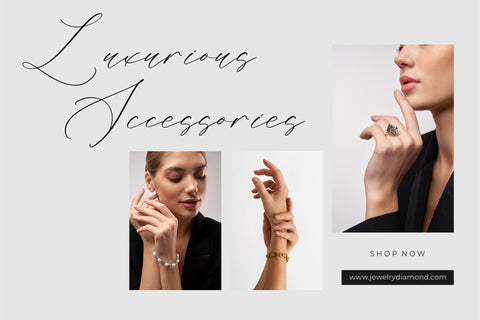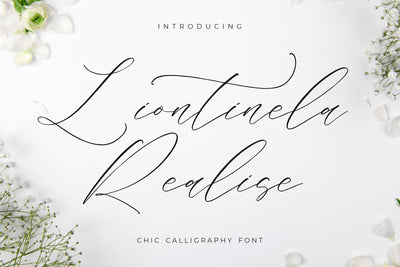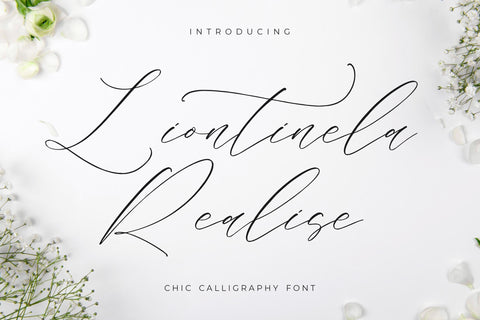
Liontinela Realise - Chic Calligraphy Font
Proudly present Liontinela Realise - Chic Calligraphy Font , created by Storytype,
A luxury script that has own unique style & modern look.